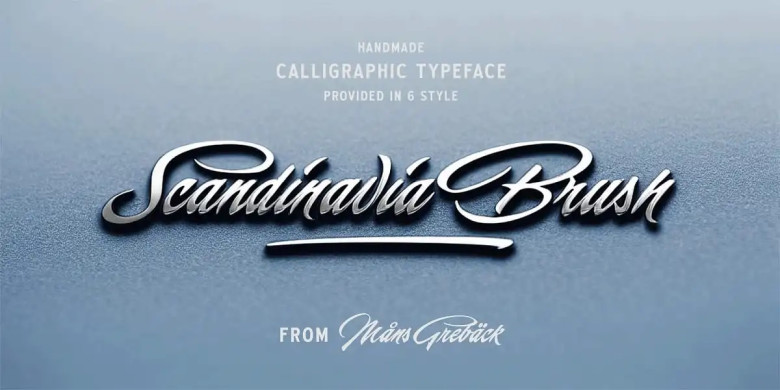
Scandinavia Brush Font
Scandinavia Brush Font is an exquisite italic Calligraphy Handwritten Font that exudes timeless and classic appeal, reflecting nature’s energy and grace in each stroke. Scandinavia Brush comes equipped with six styles – Regular, Upright Bold Italic Upright being some of them – for professional use: Regular Upright Bold Italic Upright is also included as options.
Built using advanced OpenType functionality and featuring guaranteed high quality, it contains stylistic and context alternates as well as ligatures and other features to give you full control and customization of this font. Linguistically it supports all Latin-based languages from Northern Europe to South Africa to America to South East Asia with all punctuation, numbers and all Latin-based language characters included for your use. The program comes complete with all characters needed including punctuation numbers as well as all Latin-based languages supported.
Scandinavia Brush Script Font